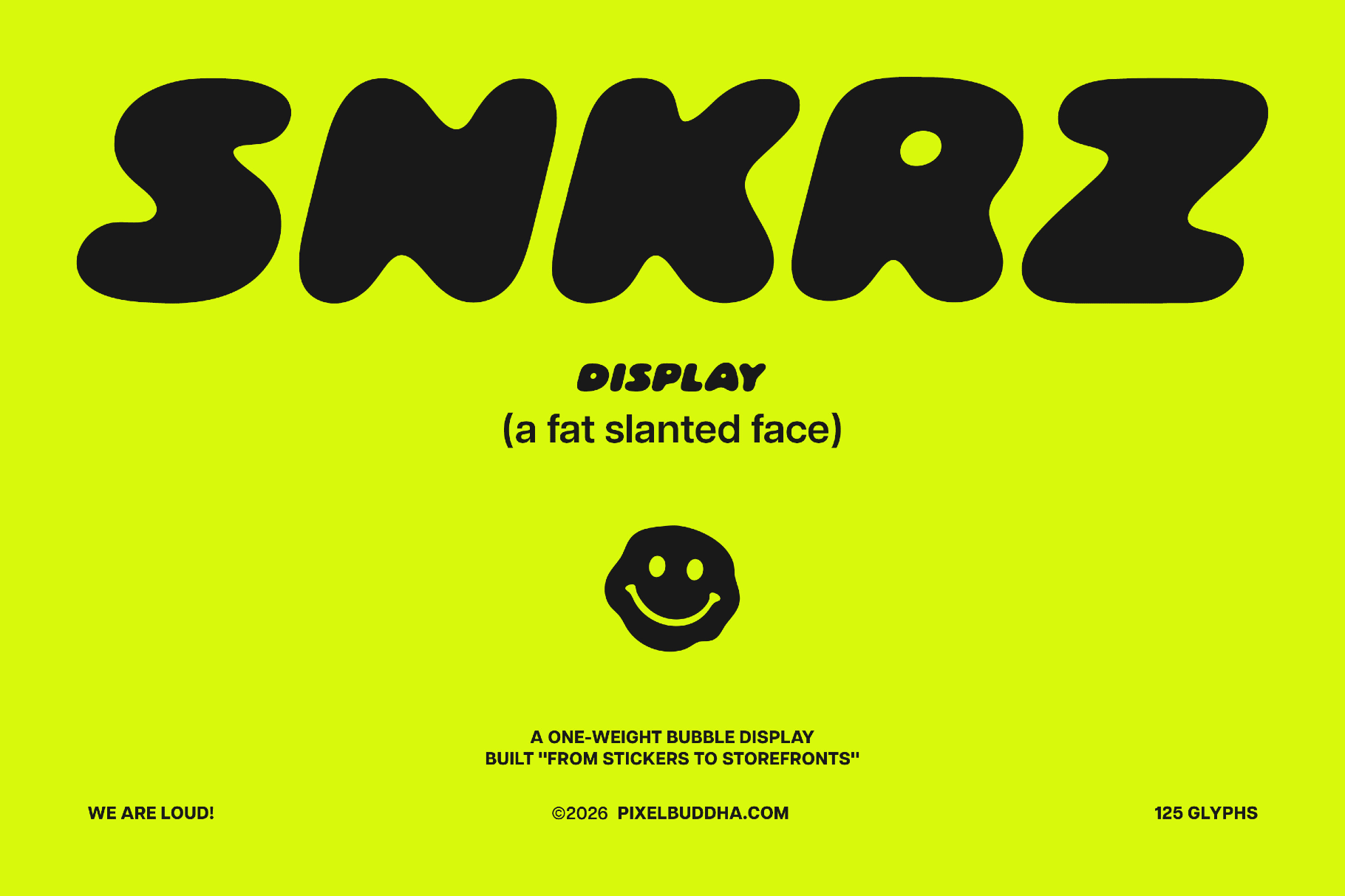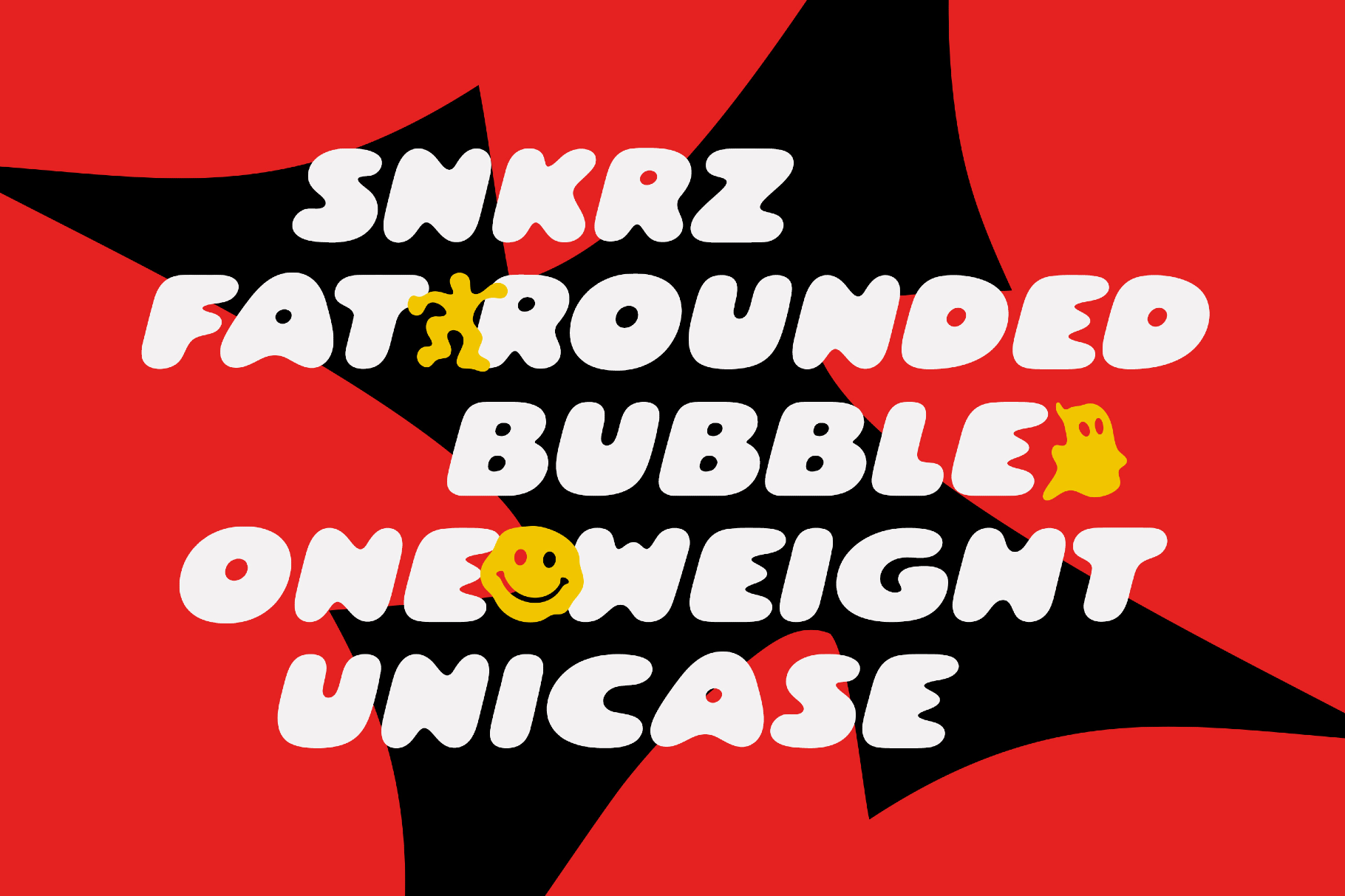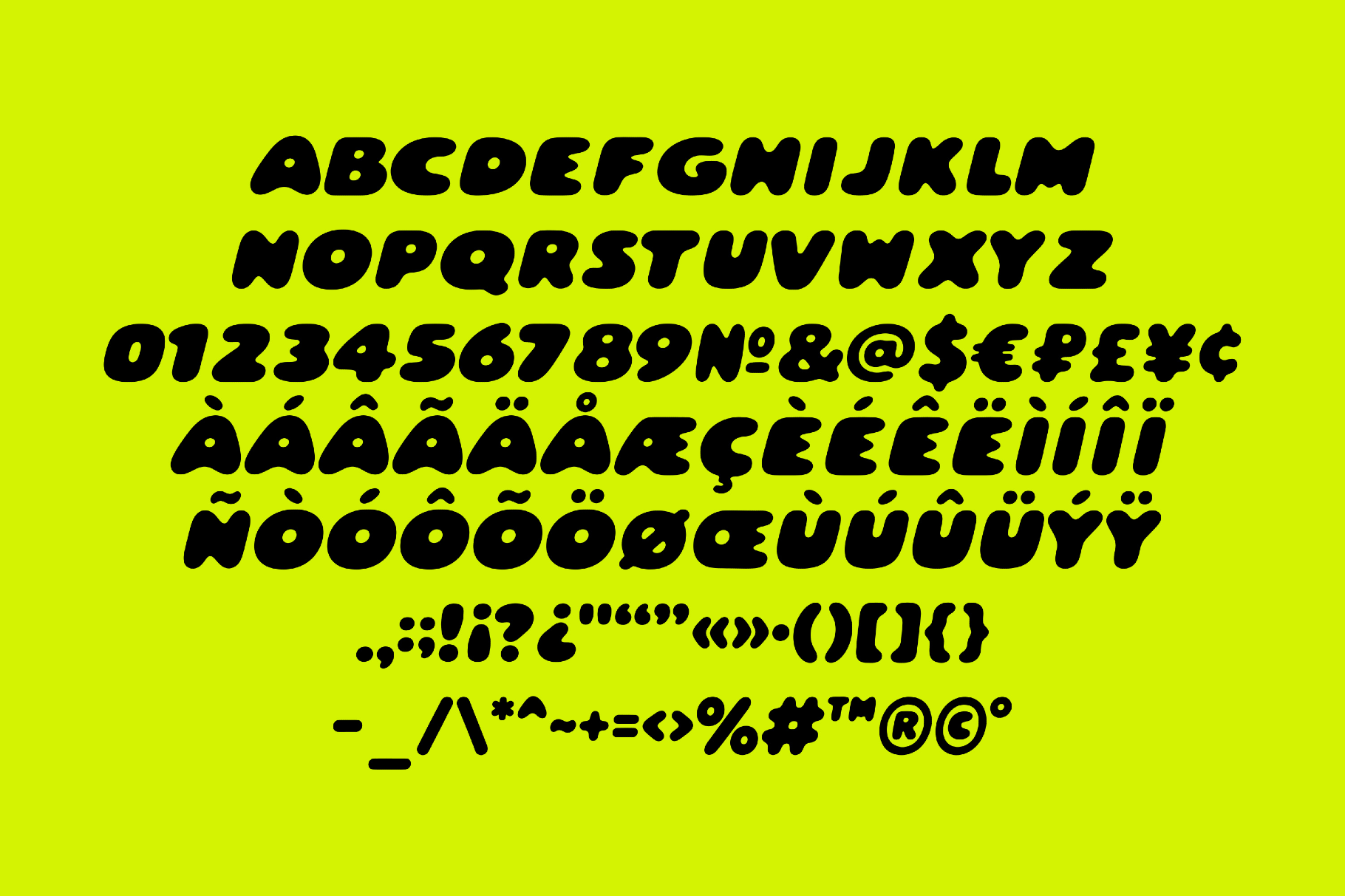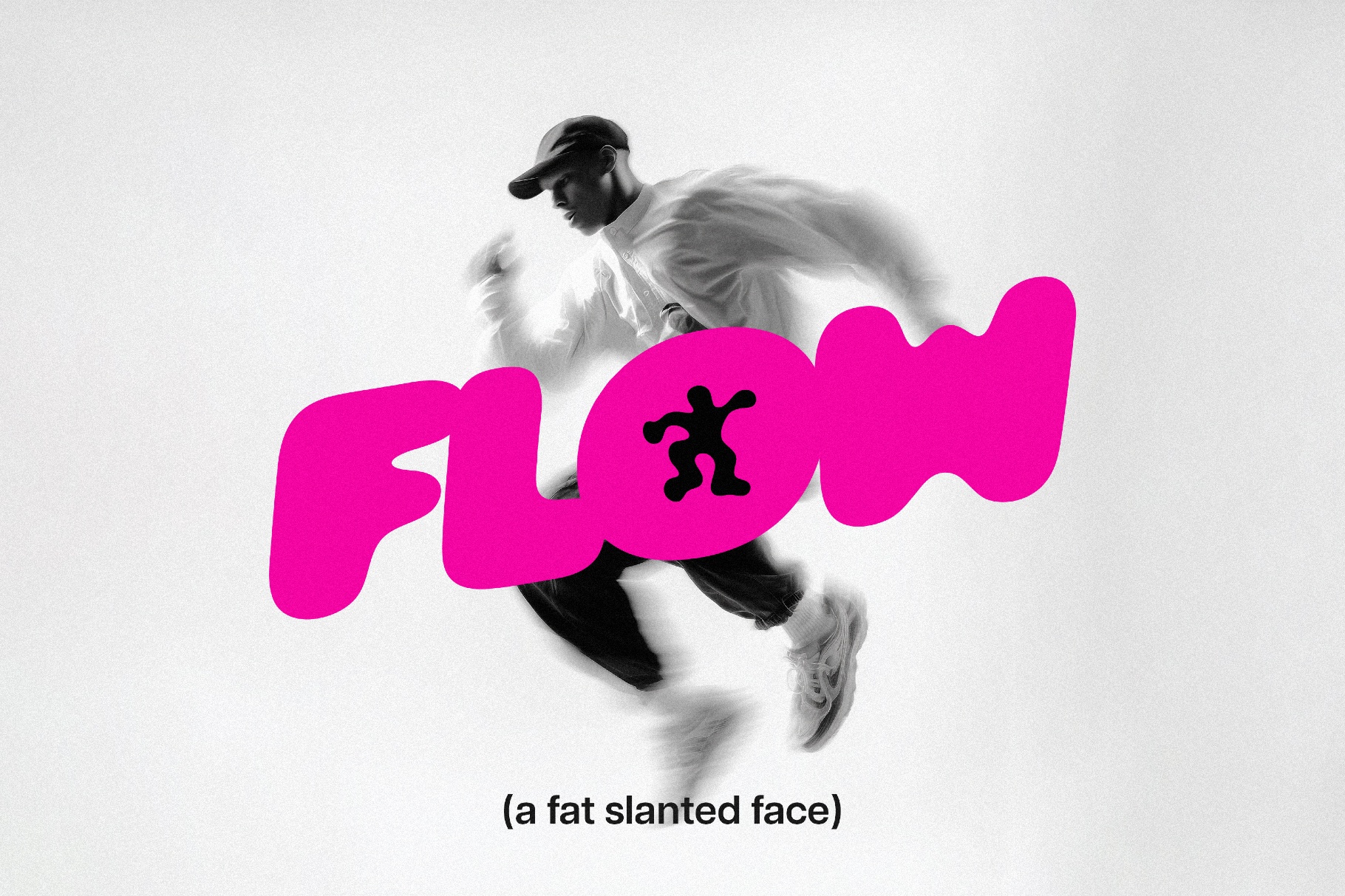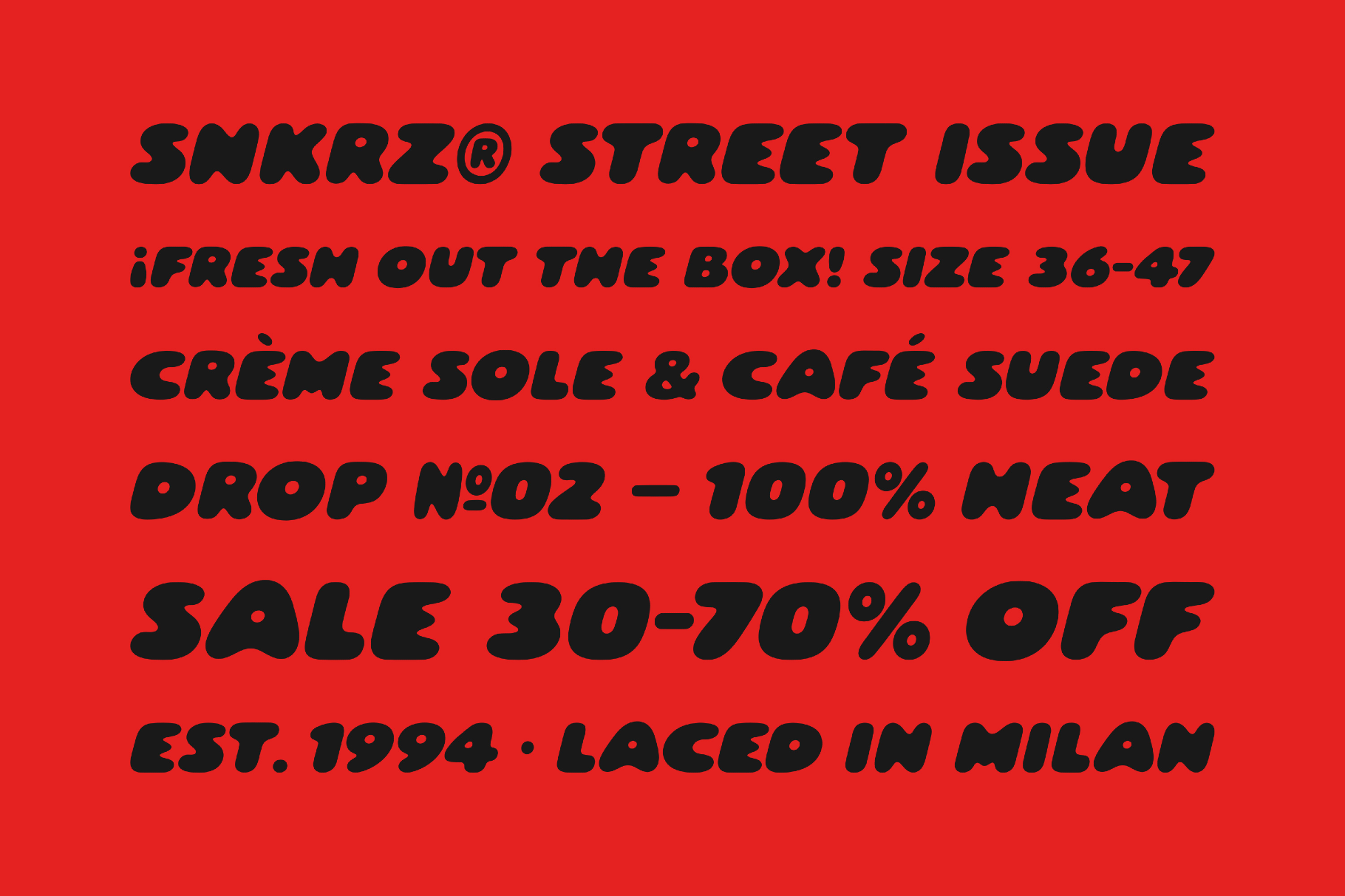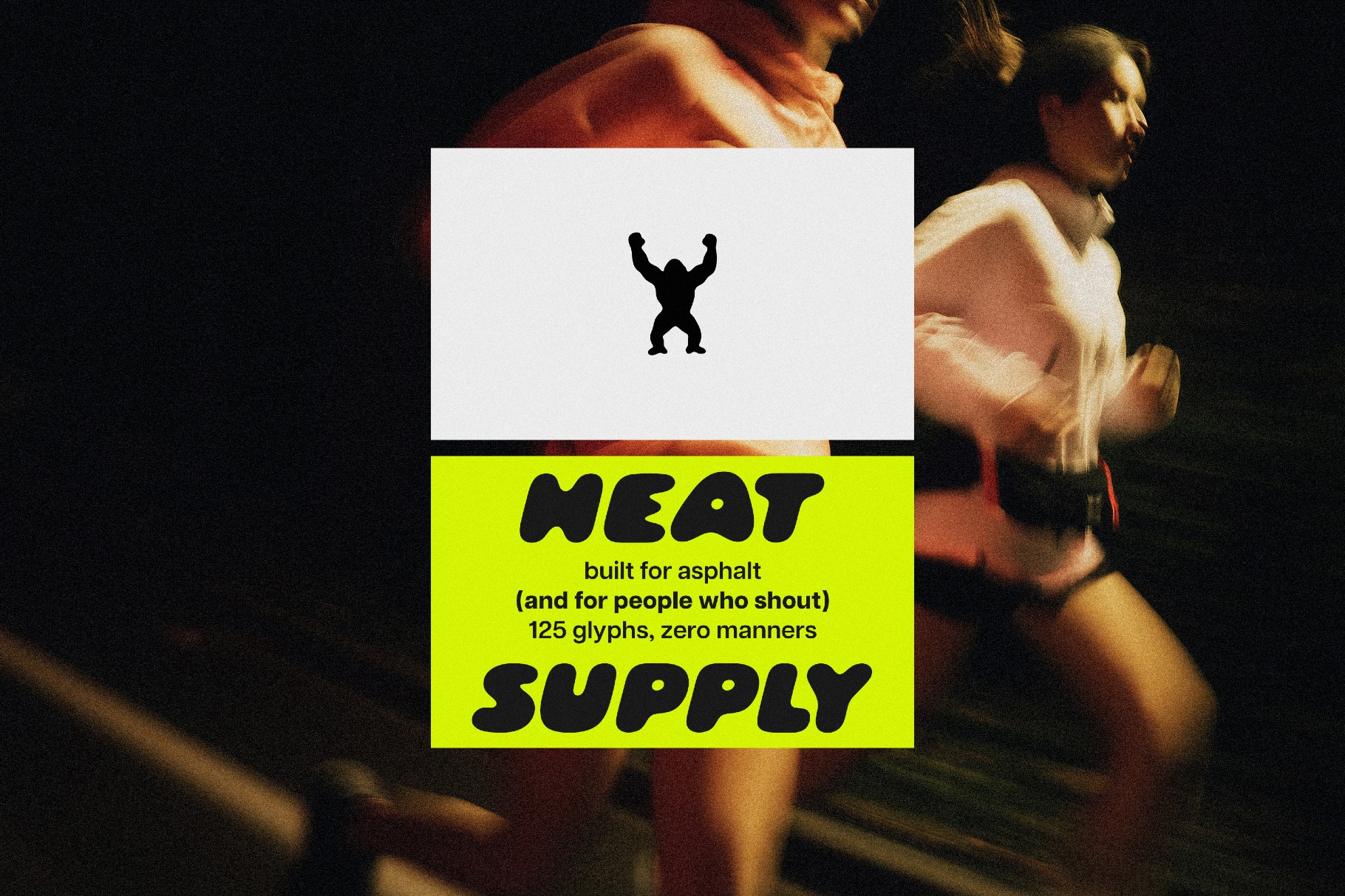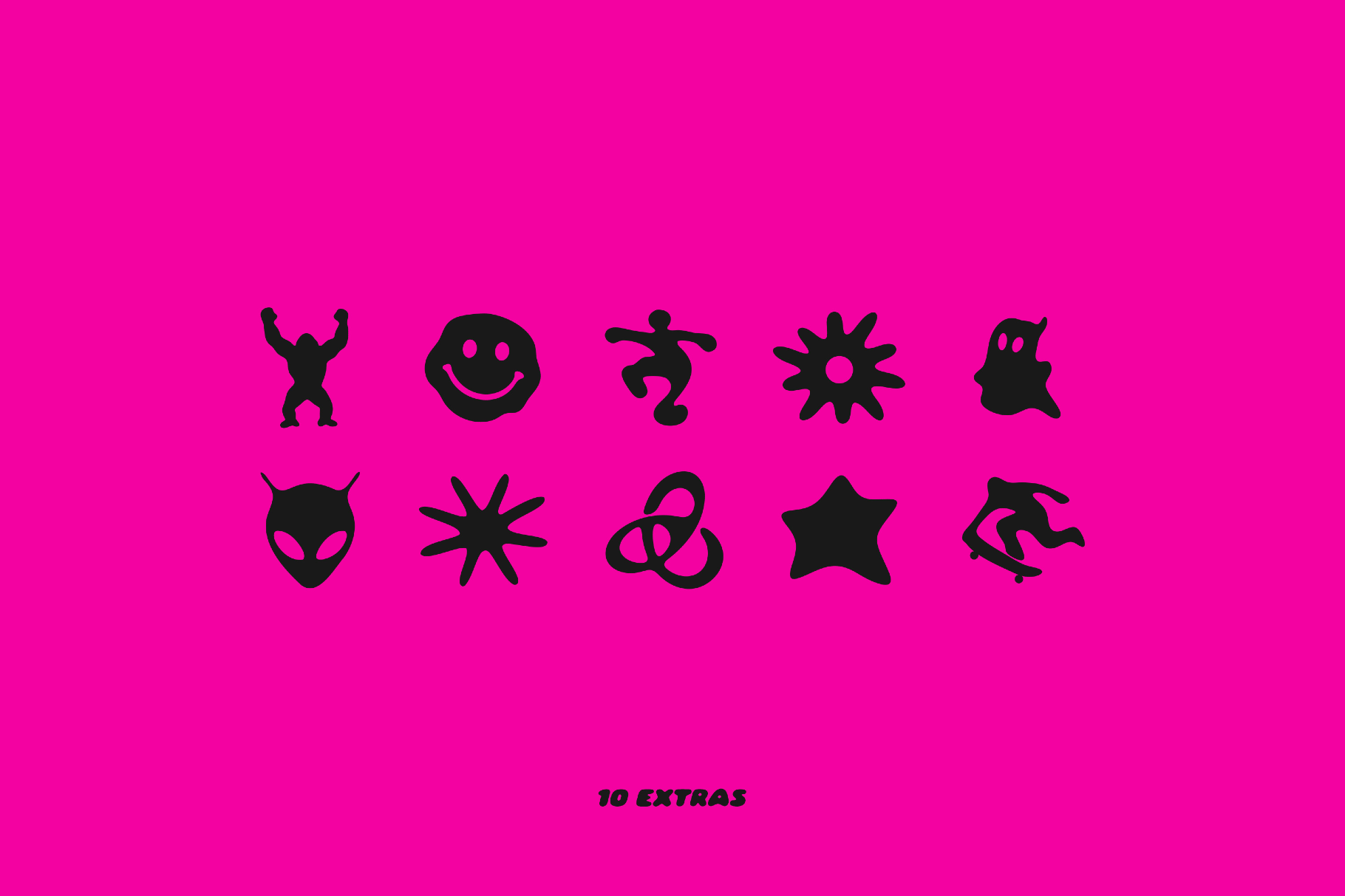
SNKRZ - Chunky Streetwear Font
SNKRZ runs on pure sneaker-culture energy — the fat lettering airbrushed on hype drops, spray-puffed on skate decks, and blown up across resale-shop windows. This chunky bubble display is unicase and one-weight: a single set of inflated, slightly slanted caps with no thin spots, every counter squeezed down to a pinhole.
Put it to work on sneaker-drop announcements, capsule tees and hoodies, skate-deck graphics, festival and tour merch, resale-store branding, and loud IG launch posts. The pack throws in 10 hand-drawn vector extras to run with the type: a smiley, a star, an alien, a ghost, a splat, a spun skater, a raised-arms figure. Drop them between words as logo marks, build them into sticker sheets, or scatter them as print accents — we ship them as AI, EPS, and SVG, so they scale and recolor without breaking.
- uppercase characters A–Z;
- numerals, punctuation, currency, and reference symbols;
- extended Latin: French, Spanish, Portuguese, Italian, German, Dutch, and the Nordic set (Ø, Æ, Å, Œ, Ñ, Ç);